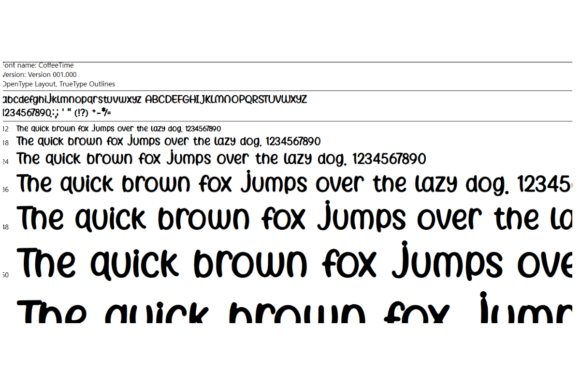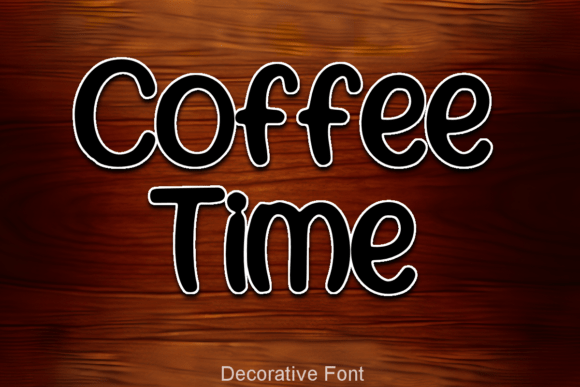
Coffee Time Font: The Perfect Blend of Style and Charm
Are you tired of using the same old fonts in your design projects? Look no further than Coffee Time, a delightful font that is sure to add a touch of magic to your work. With its adorable aesthetic and peppy persona, Coffee Time is the perfect choice for designers and crafters looking to elevate their design language to new heights of richness and style.
The Charm of Coffee Time Font
Coffee Time font is an enchanting typography that boasts a unique and captivating style. Its adorable aesthetic is sure to transform any work into visually striking art, making it perfect for lifestyle blogs, creative ventures, and any design project that requires a touch of personality. Whether you’re a designer, crafter, or simply someone who appreciates great typography, Coffee Time is sure to leave a lasting impression.
Why Choose Coffee Time Font?
So, what sets Coffee Time font apart from other typography options? Here are just a few reasons why designers and crafters are falling in love with this charming font:
- Unique Aesthetic: Coffee Time font has a one-of-a-kind style that is sure to make your design project stand out from the crowd.
- Versatility: This font is perfect for a wide range of design projects, from lifestyle blogs and creative ventures to social media graphics and marketing materials.
- Easy to Read: Despite its playful and whimsical style, Coffee Time font is easy to read, making it perfect for body text and headlines.
- Highly Customizable: With Coffee Time font, you can experiment with different colors, sizes, and styles to create a unique look that reflects your brand or personal style.
How to Use Coffee Time Font in Your Design Project
Using Coffee Time font in your design project is easy. Here are a few tips to get you started:
- Pair it with Other Fonts: Coffee Time font pairs perfectly with other fonts, such as sans-serif and serif fonts. Experiment with different combinations to create a unique look.
- Use it for Headlines and Titles: Coffee Time font is perfect for headlines and titles, where its playful and whimsical style can really shine.
- Experiment with Colors: Don’t be afraid to experiment with different colors and gradients to create a unique look that reflects your brand or personal style.
The Benefits of Using Coffee Time Font
Using Coffee Time font in your design project can have a number of benefits, including:
- Increased Engagement: With its playful and whimsical style, Coffee Time font is sure to grab the attention of your audience and keep them engaged.
- Improved Brand Recognition: By using a unique and memorable font like Coffee Time, you can create a consistent brand identity that will help your business stand out from the competition.
- Enhanced Creativity: Coffee Time font is the perfect choice for designers and crafters who want to add a touch of personality to their work.
| Font Name | Coffee Time Font |
| Author | TCSP Designs |
In conclusion, Coffee Time font is a charming and captivating typography that is sure to infuse an irresistible appeal into your design project. With its adorable aesthetic, peppy persona, and versatility, Coffee Time is the perfect choice for designers and crafters looking to elevate their design language to new heights of richness and style. So why not give it a try and experience the charm of Coffee Time font for yourself?
Get Ready to Fall in Love with Coffee Time Font
If you’re ready to take your design project to the next level with Coffee Time font, here are a few final tips:
- Experiment and Have Fun: Don’t be afraid to experiment with different styles, colors, and combinations to create a unique look that reflects your brand or personal style.
Coffee Time font is a game-changer for designers and crafters who want to add a touch of personality to their work. With its charming aesthetic and versatility, it’s the perfect choice for any design project. So what are you waiting for? Give Coffee Time font a try today and experience the charm for yourself!